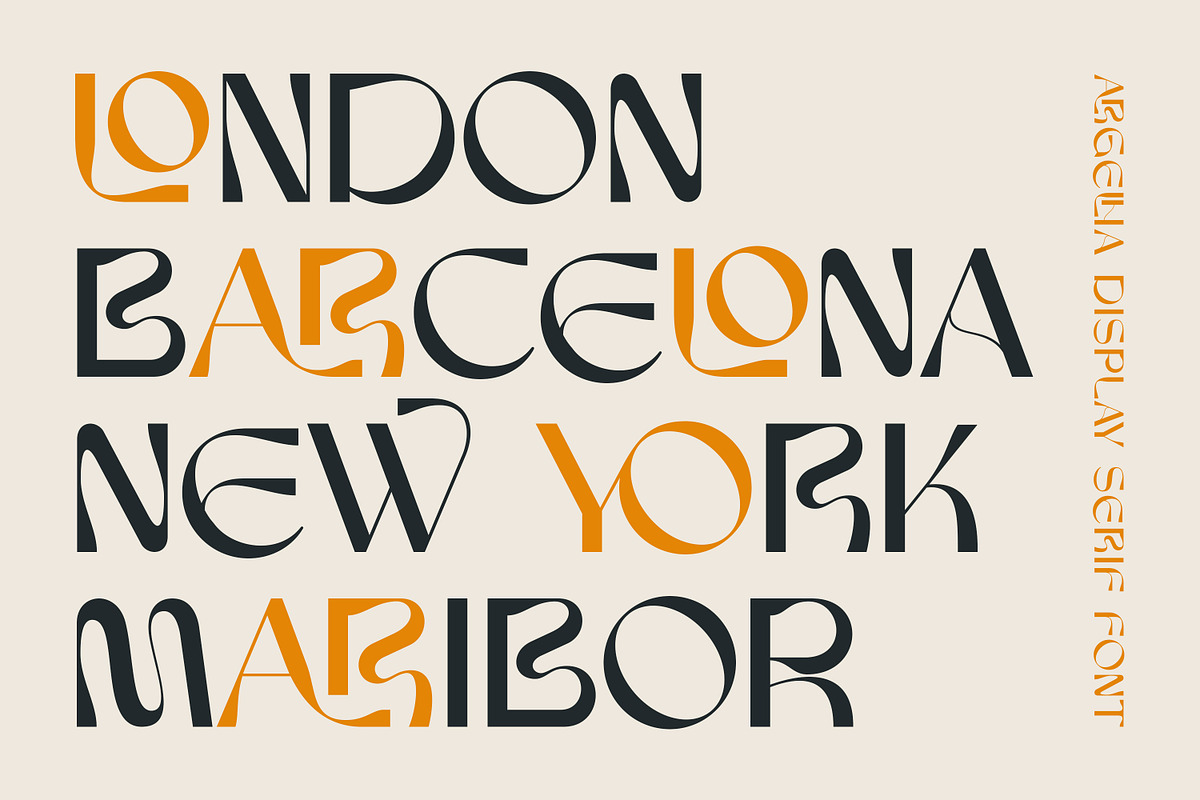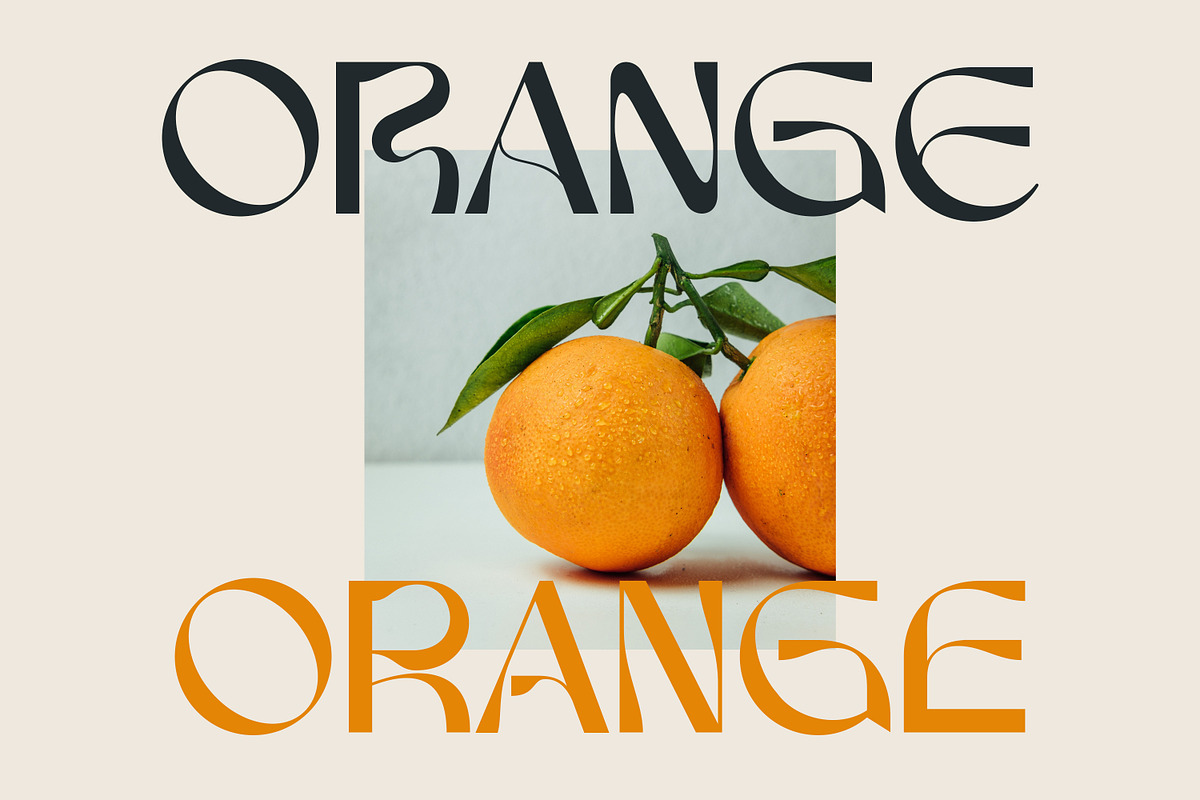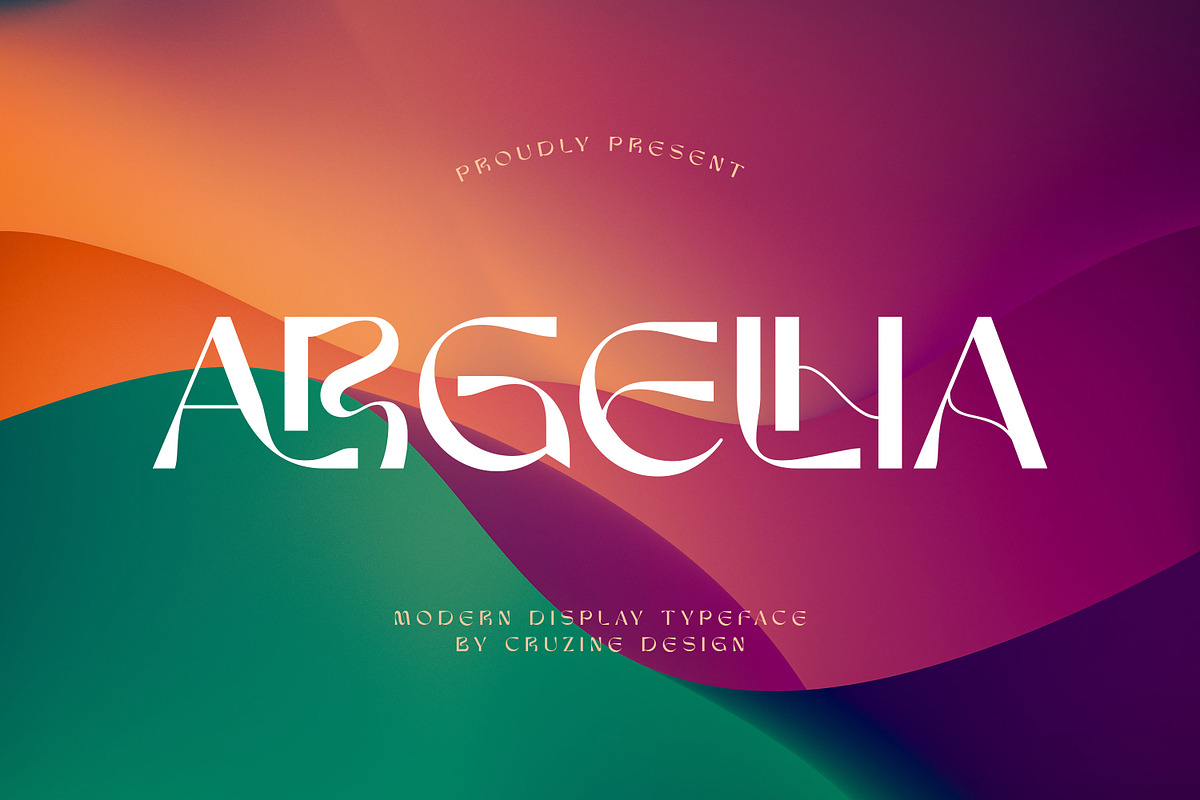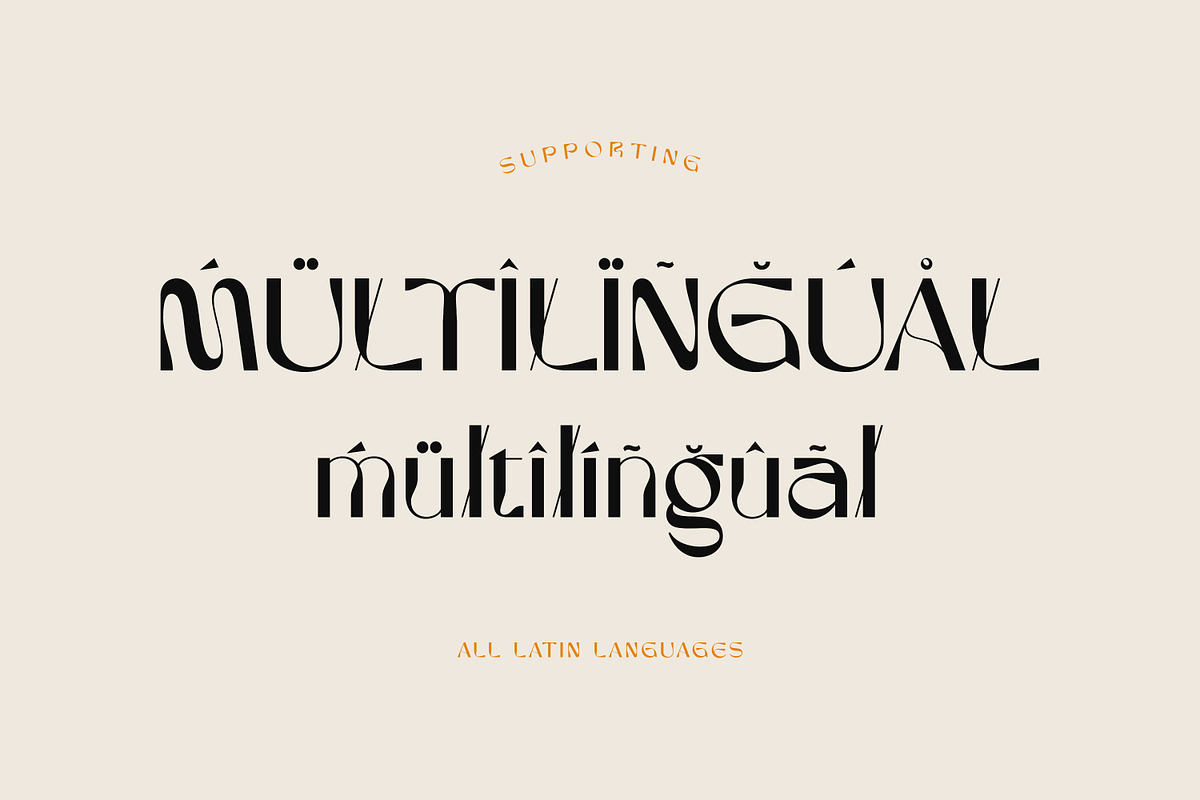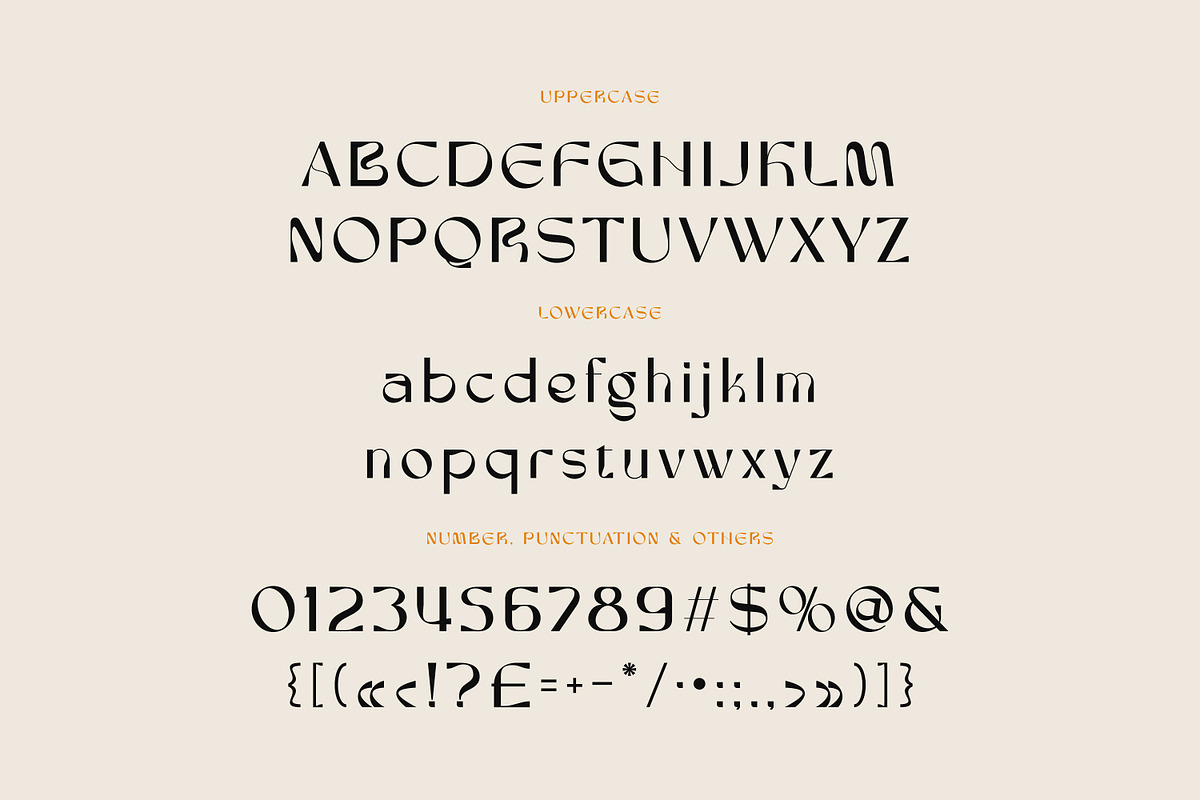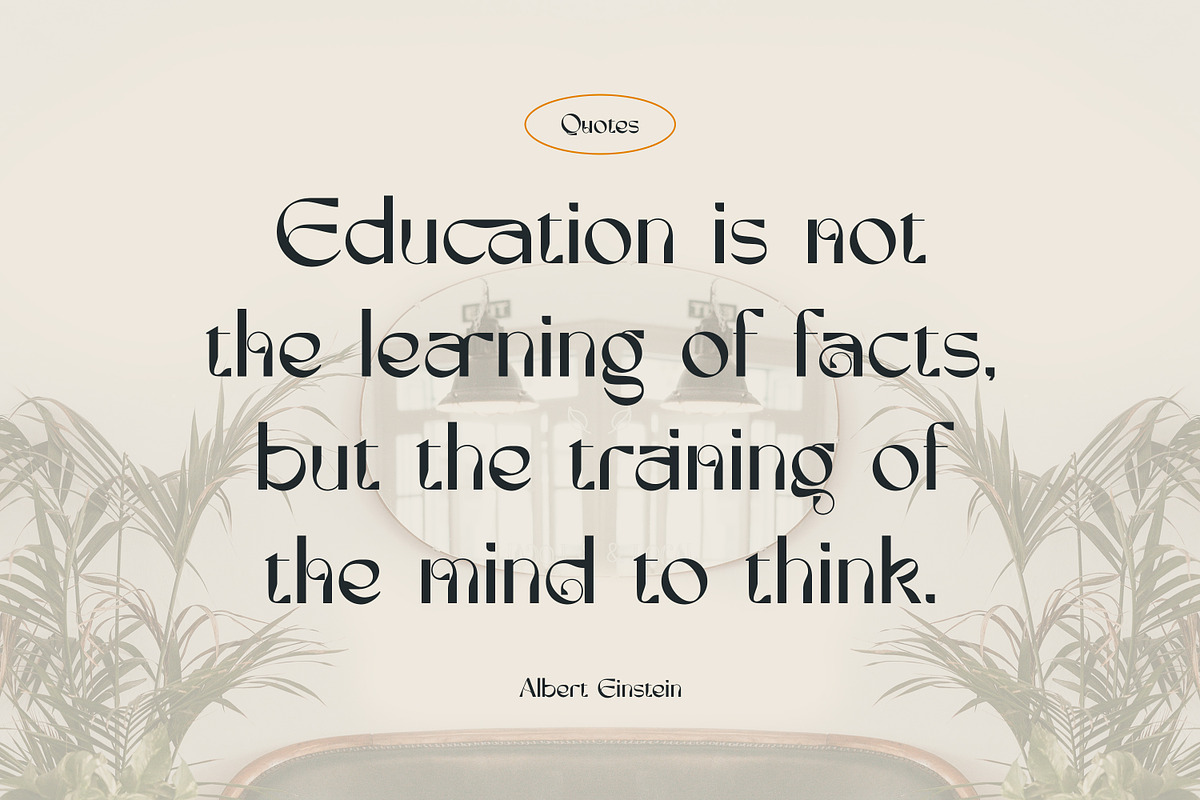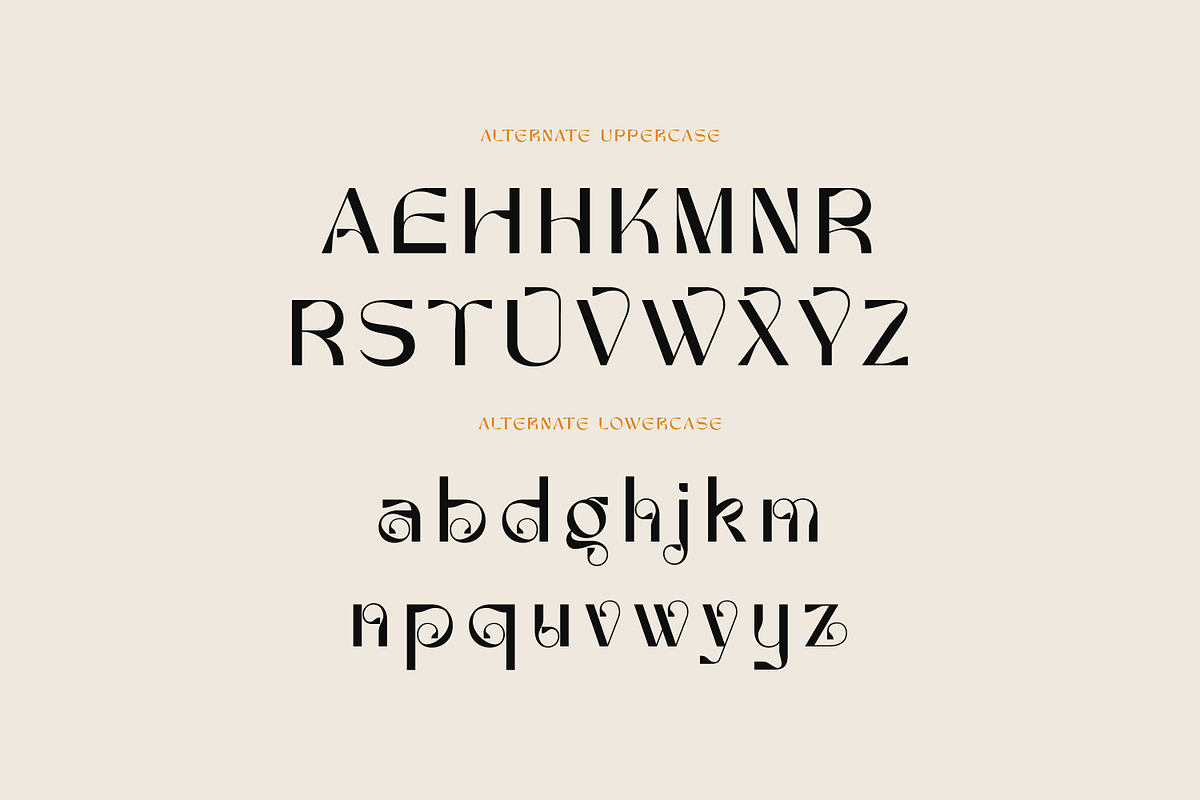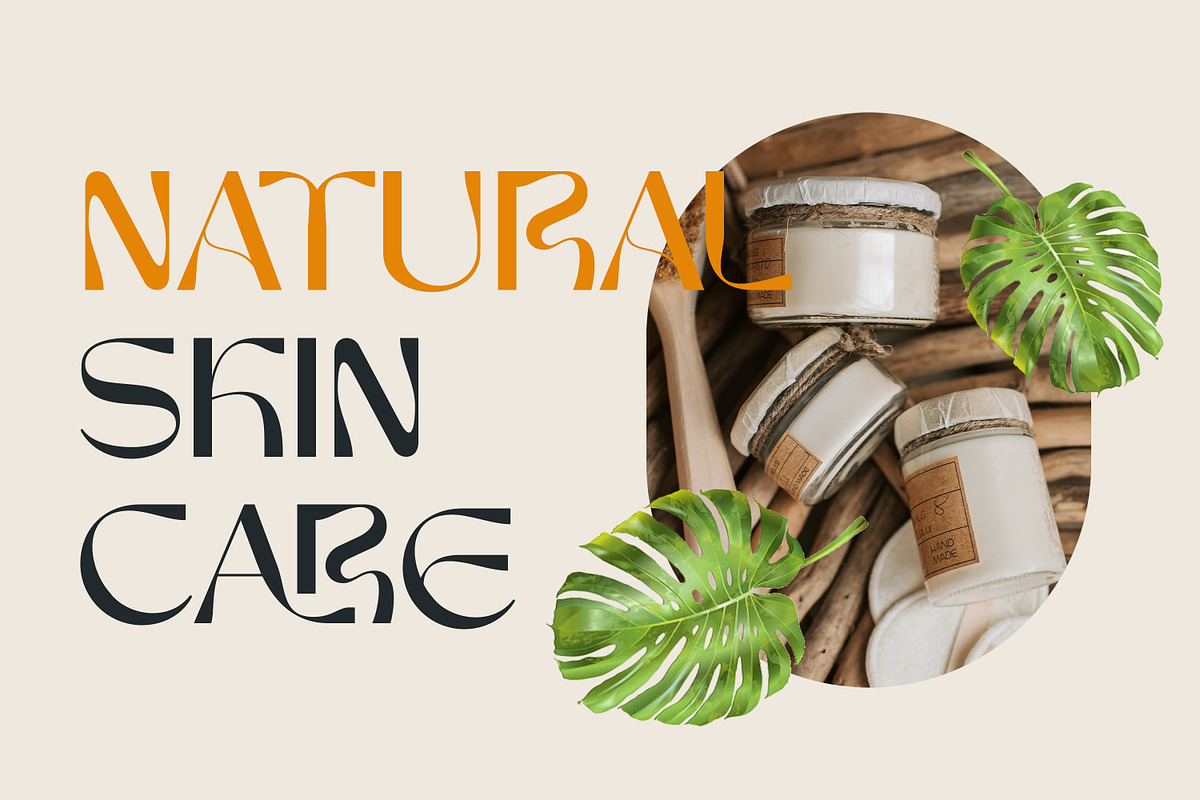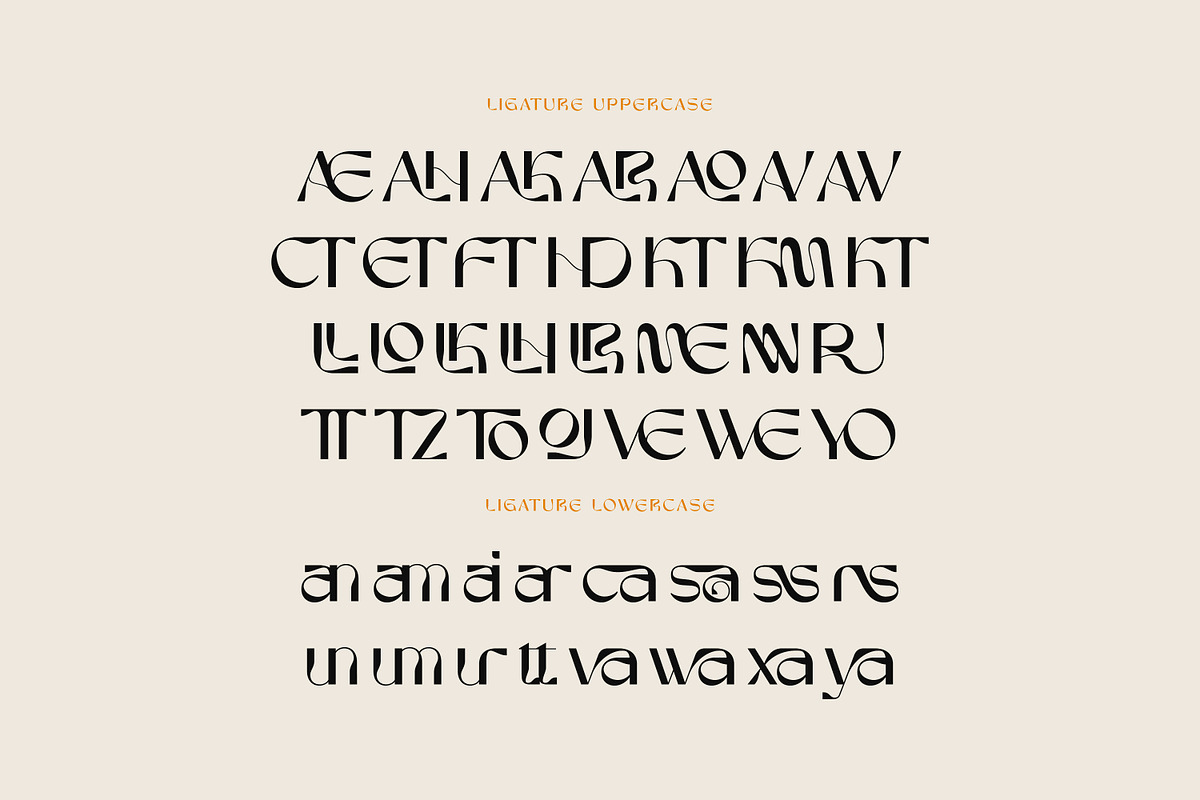
Argelha Modern Sans
Trendy, groovy, crazy & modern style font for your new crazy projects. Elegant, artistic and funky style on Argelha font will be great for any branding project. Lot of alternates and ligatures will help you to create unique and original logo design or website header! Enjoy :)
- Alternate characters
- Lot of ligatures
- Great for modern branding projects!